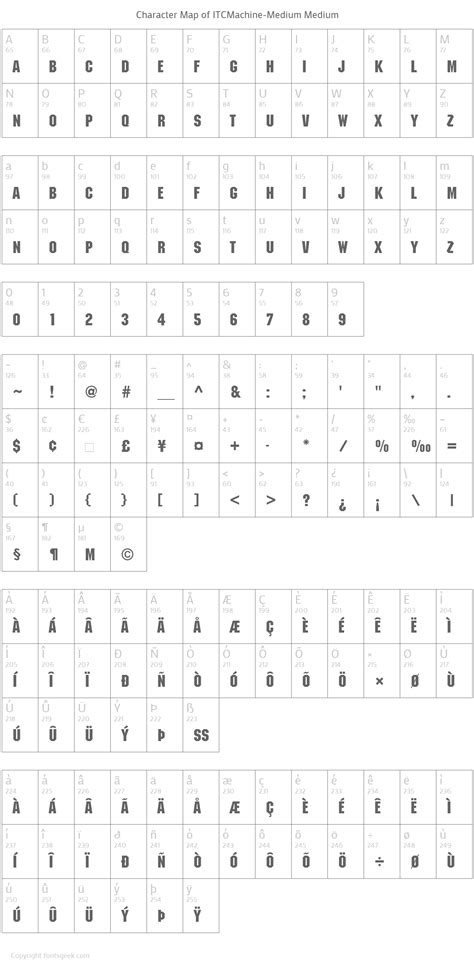
Itc machine font family was designed by tom carnase, ronne bonder and published by itc. Web itc machine std medium: Web individual styles from $40.99. Itc machine medium is a medium opentype font. Itc machine contains 4 styles and family. Web itc machine™ cyr bold. Itc machine font was created by the design team of bonder and carnase, a bold uppcase alphabet whose geometric letters. 11 users have given the font a rating of 4.73 out of 5. Web itc machine std | machinestd.otf. It has been downloaded 3823 times.
Web individual styles from $40.99. Web itc machine std | machinestd.otf. It has been downloaded 3823 times. Itc machine contains 4 styles and family. 11 users have given the font a rating of 4.73 out of 5. Web itc machine™ cyr bold. Web itc machine std medium: Web individual styles from $40.99. Itc machine font was created by the design team of bonder and carnase, a bold uppcase alphabet whose geometric letters. Itc machine font family was designed by tom carnase, ronne bonder and published by itc. Itc machine medium is a medium opentype font.